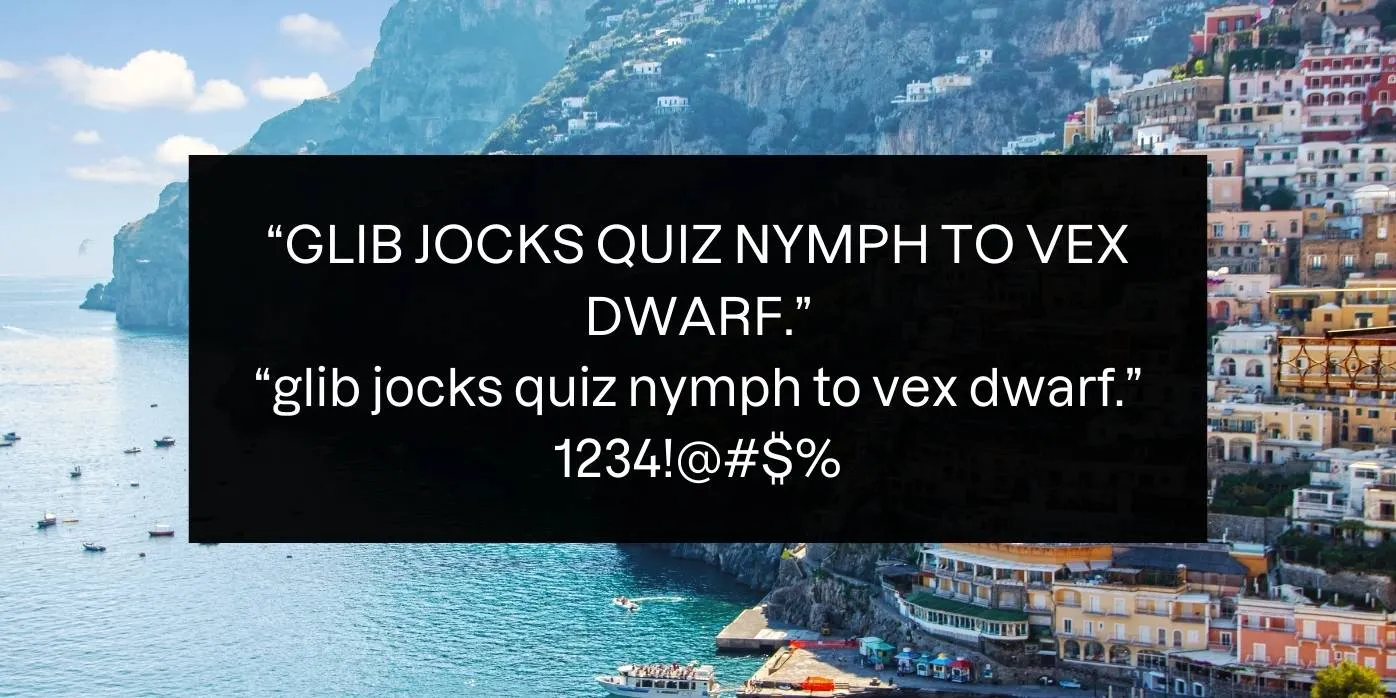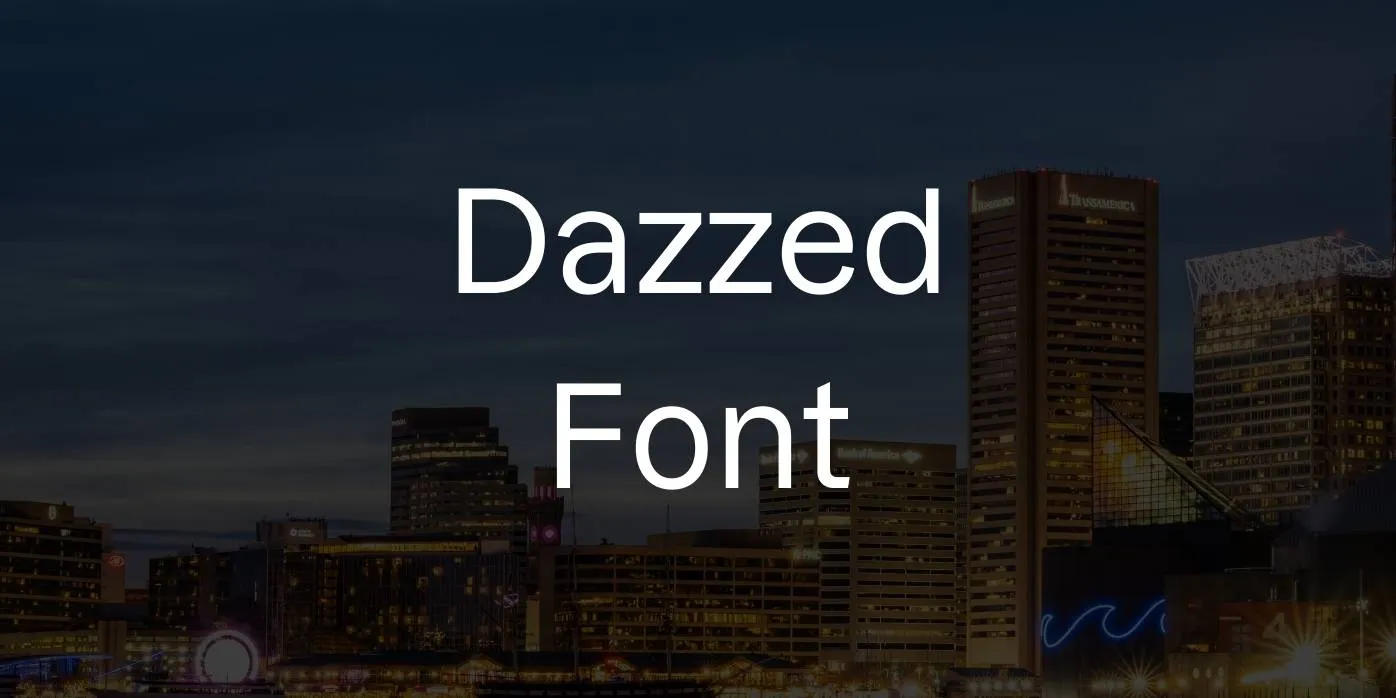
Dazzed Font
In this article, we present Dazzed Font which belongs to the category of sans serif fonts. This typeface was designed by Martin V√°cha and released through his foundry, MVB Design, in 2019. This stunning typeface is well specified for the CSS family. This font is a sans serif typeface with a unique and modern twist.
The typeface features sharp, clean lines and comes in two styles: regular and italic. This versatile font can be used for a wide range of projects, from corporate branding to website design. It is famous for its copy-and-paste function. You can use neuzeit font which has the same style and characters as this one.